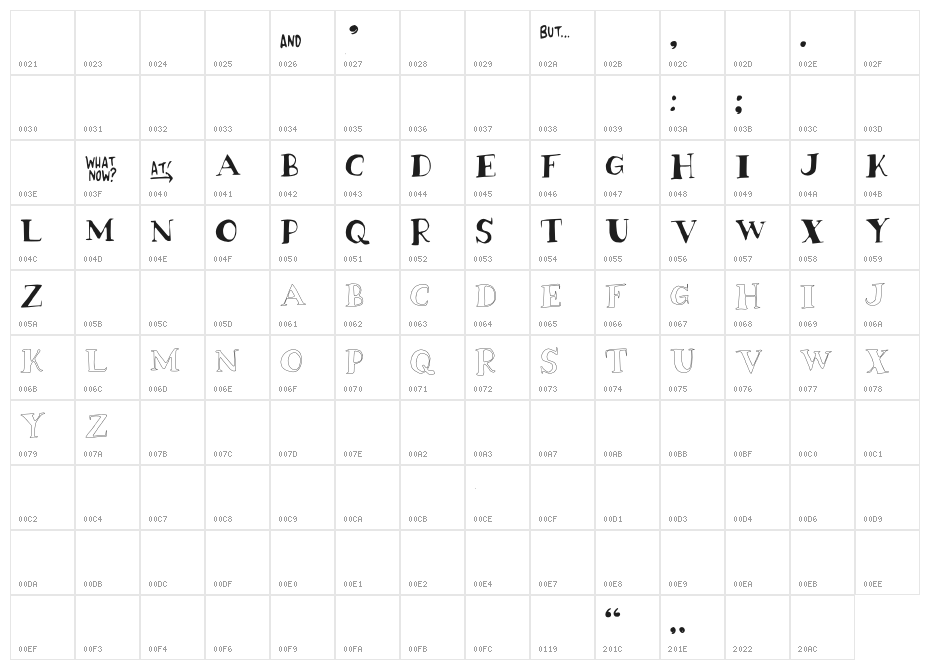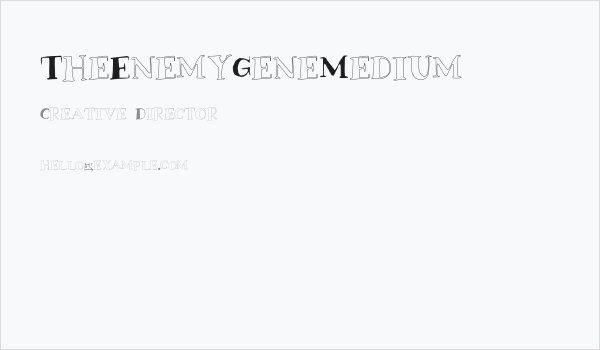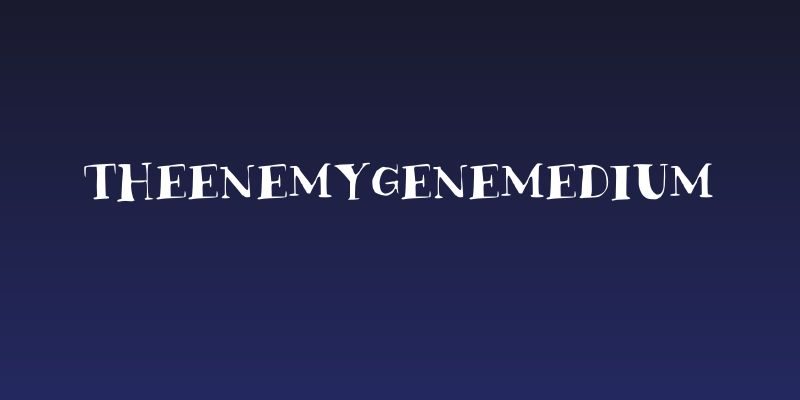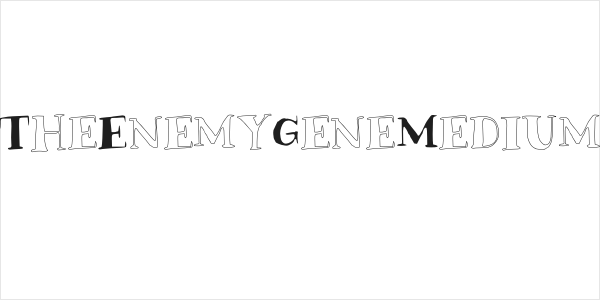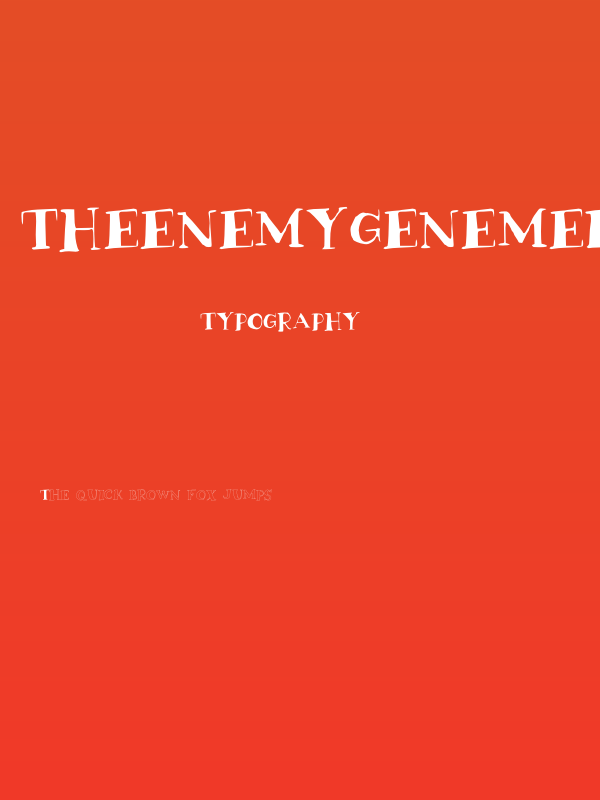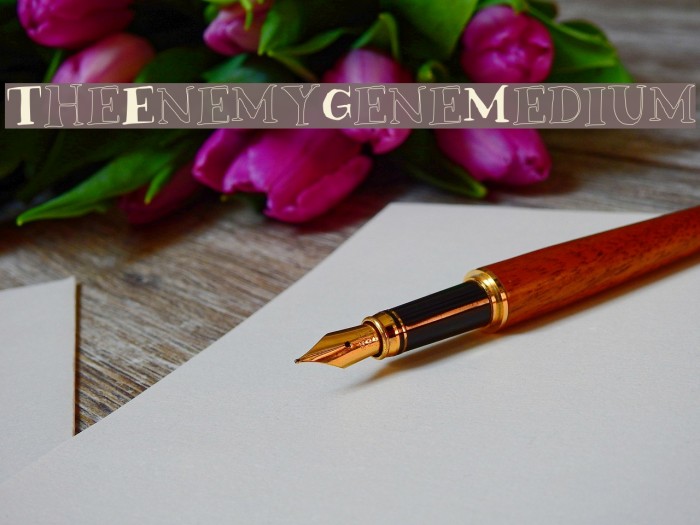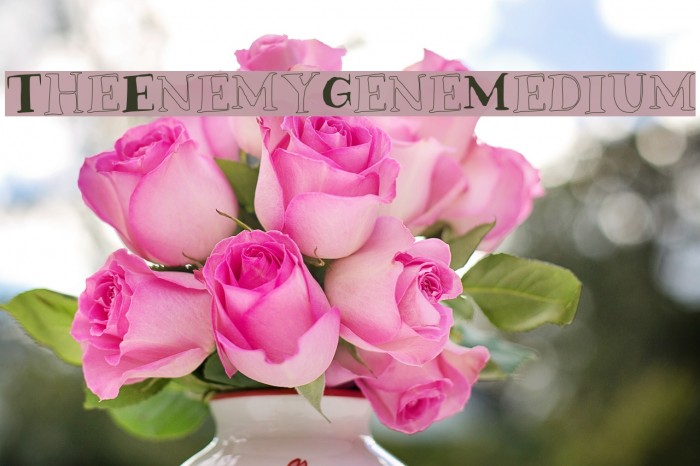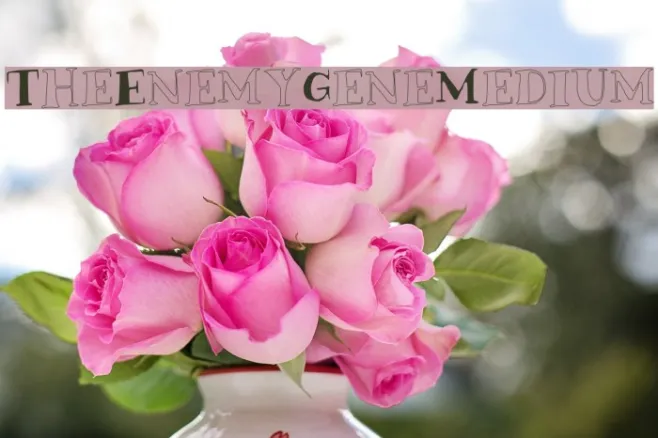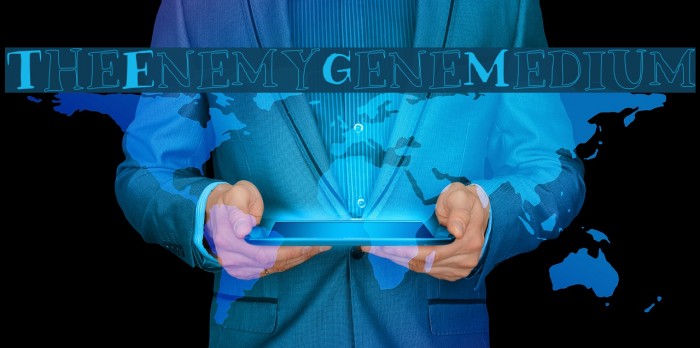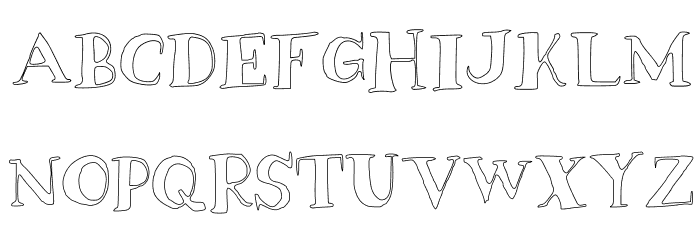
TheEnemyGeneMedium Font
TheEnemyGeneMedium Description
This font features a bold and dynamic style with a hand-drawn appearance. The uppercase letters have a playful, slightly irregular form, giving them a whimsical and artistic feel. The strokes vary in thickness, adding to the font's unique character. The lowercase letters maintain this playful style, with some letters having exaggerated curves and angles. The numbers and special characters are consistent with the overall design, ensuring a cohesive look. This font is ideal for projects that require a creative and informal touch.
| Overall Style | Artistic and playful |
| Proposed Projects | Perfect for children's books, creative posters, and artistic branding materials. |